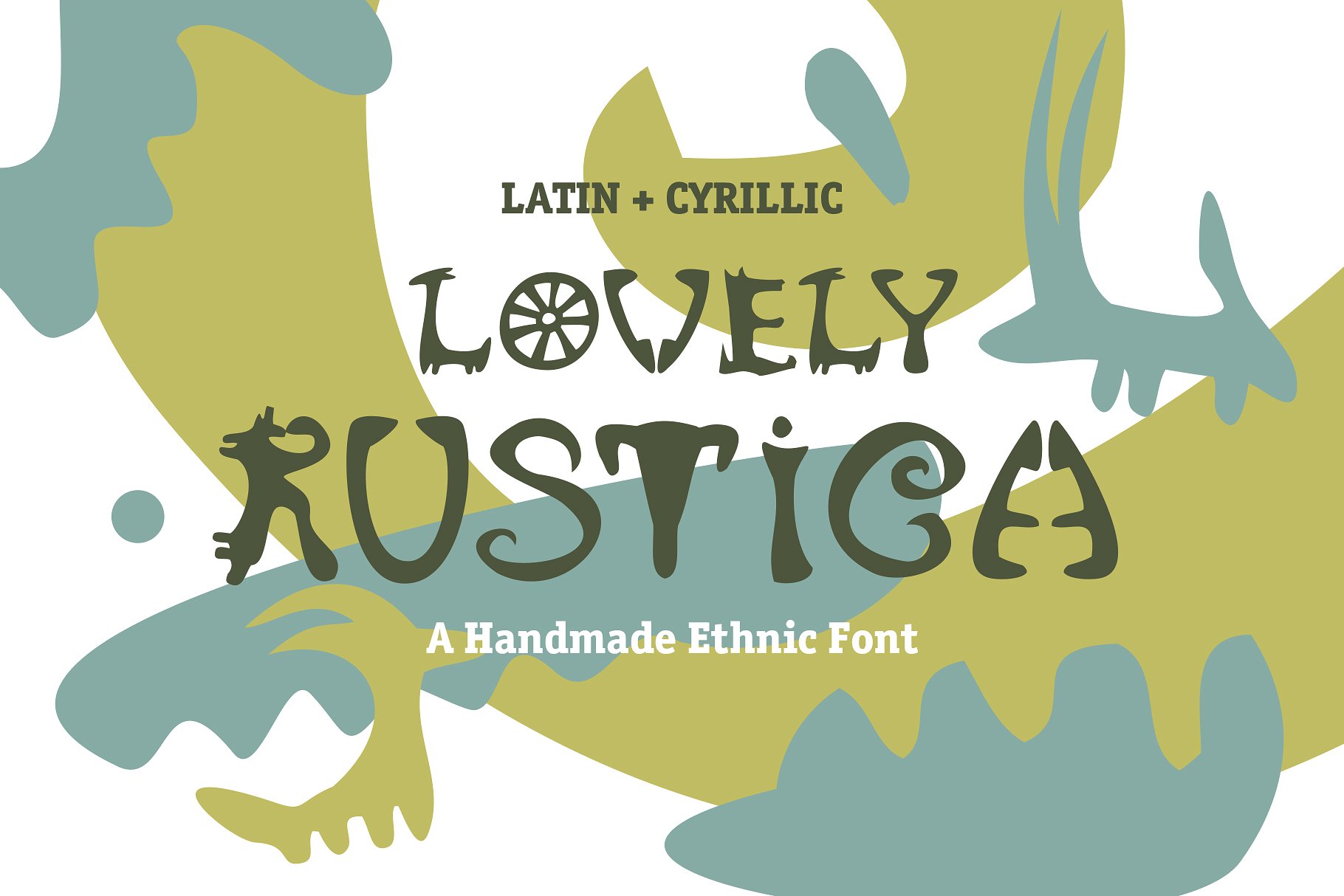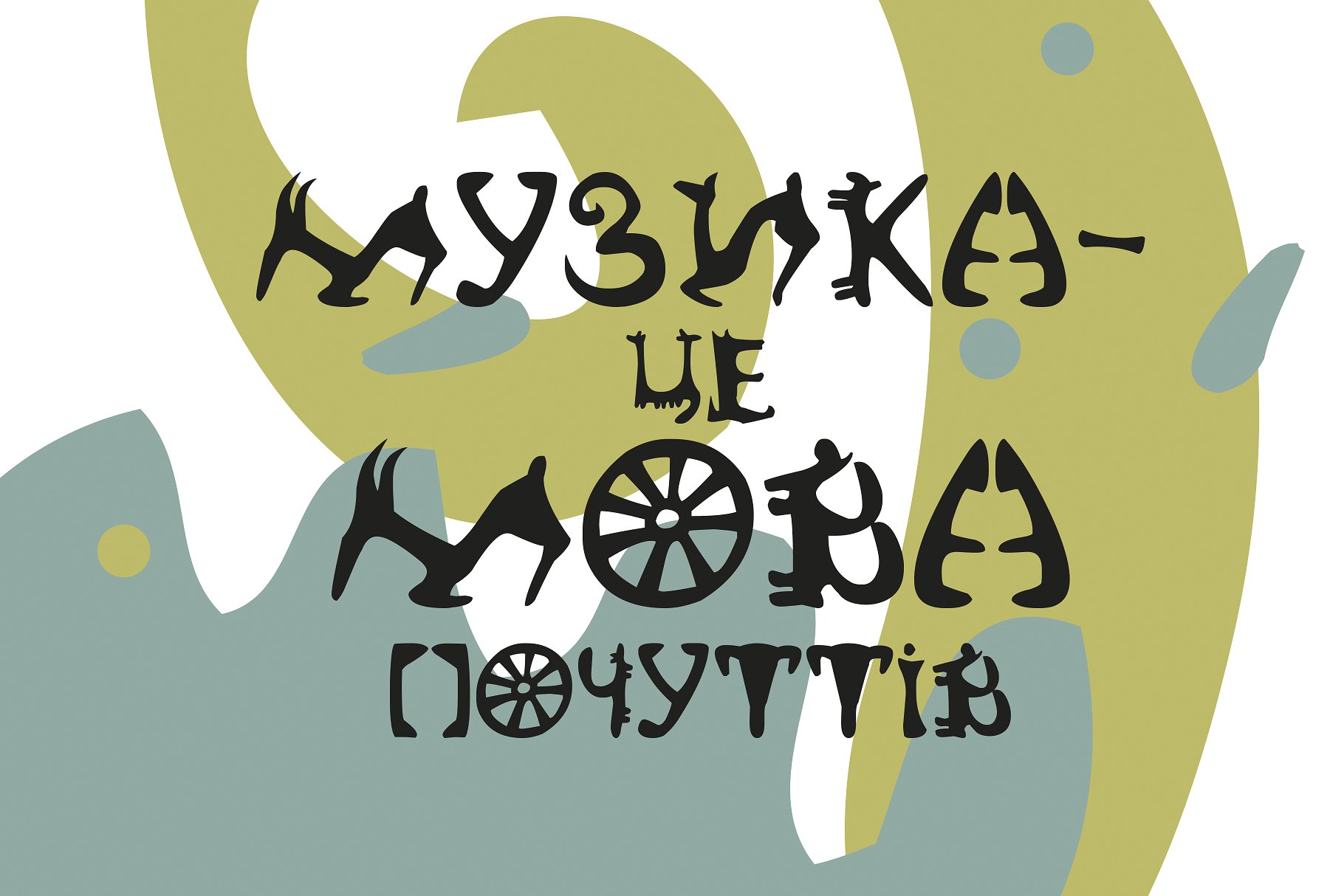
Lovely Rustica - a fun hand-lettered uppercase ethnic font with latin and cyrillic letters! Trypillian culture inspired me to create this font. Lovely Rustica font contains latin and cyrillic letter sets, numerals and punctuation. +bonus Lovely Rustica elements in AI, EPS and PNG formars
Font features: Standard characters A-Z, 0-9, and punctuation for the Latin Basic and Western European set, Cyrillic А-Я set, additional letters for the Ukrainian language.